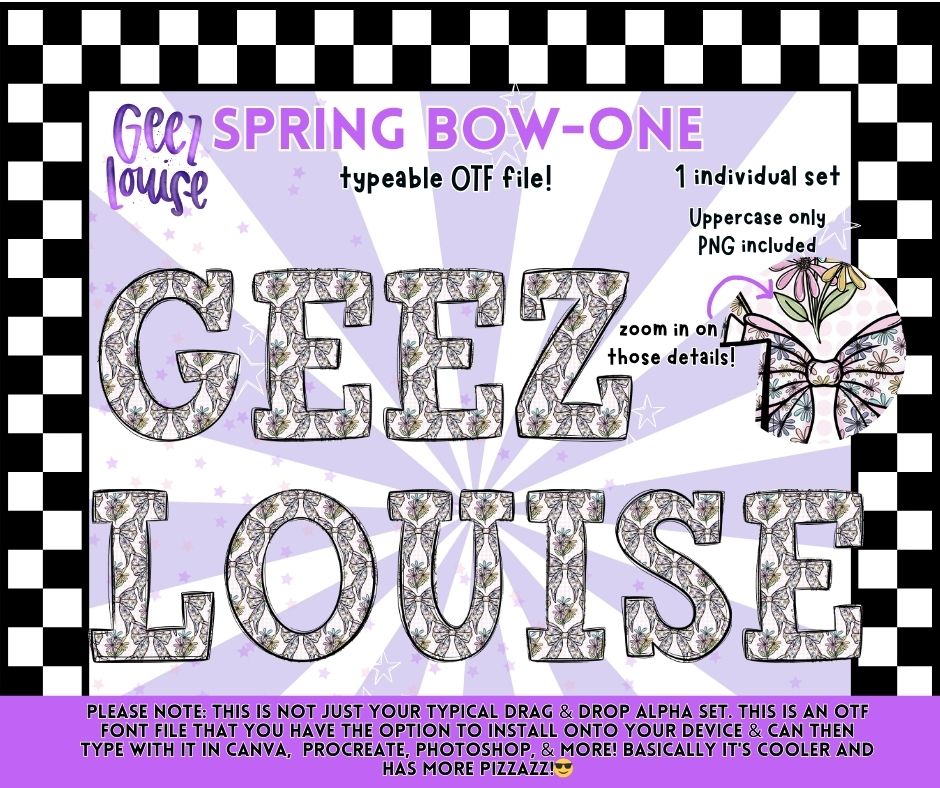
Spring Bow-One OTF Font | Uppercase Typeface + PNG | Floral Bow Alphabet
Meet Spring Bow-One — a soft floral alphabet featuring delicate bow details and a clean spring aesthetic 🎀🌸
Perfect for spring designs, Easter projects, kids apparel, boutique graphics, and sweet seasonal creations.
• Uppercase letters only
✔️ Soft details with a polished, professional finish